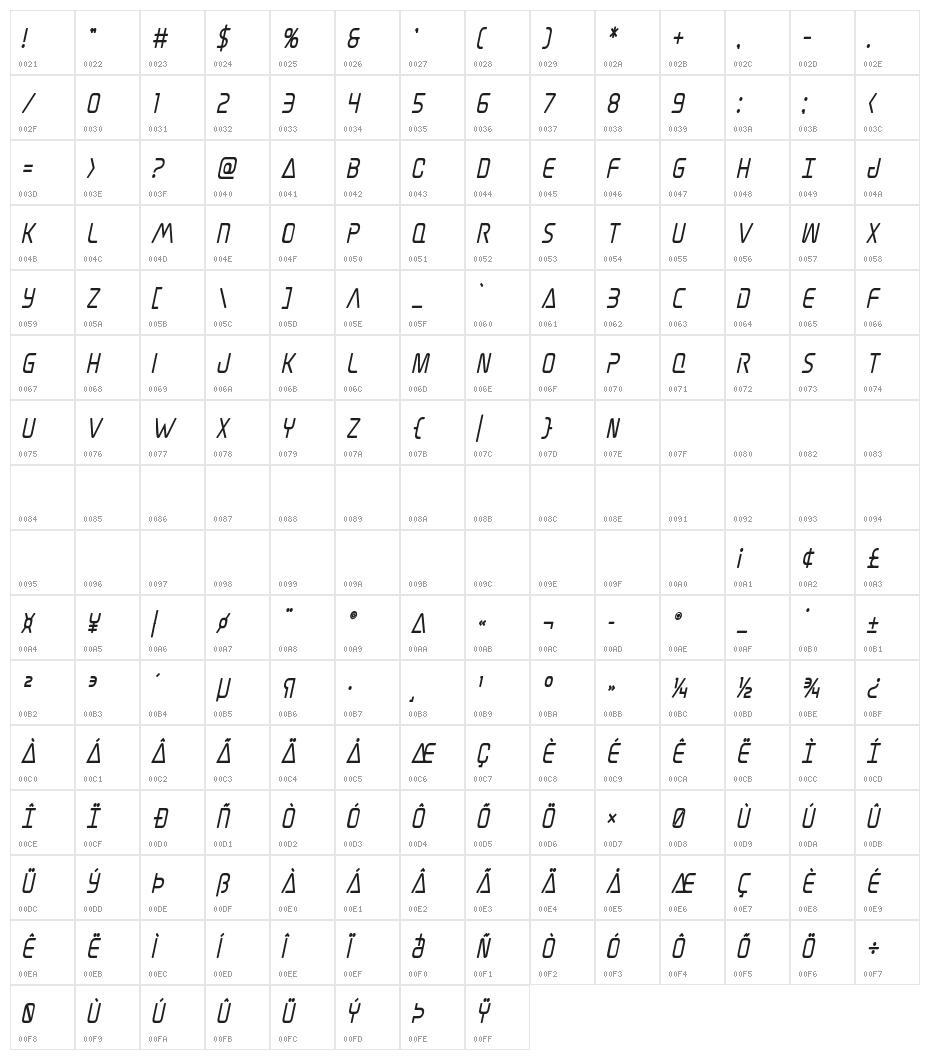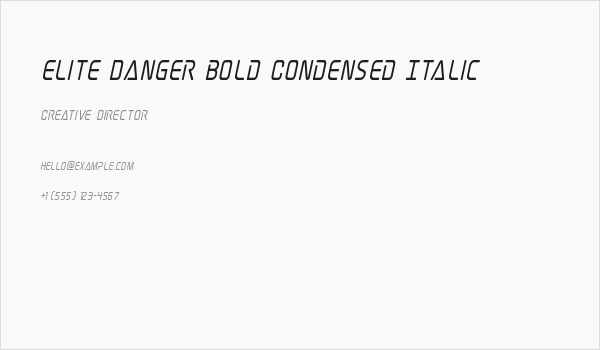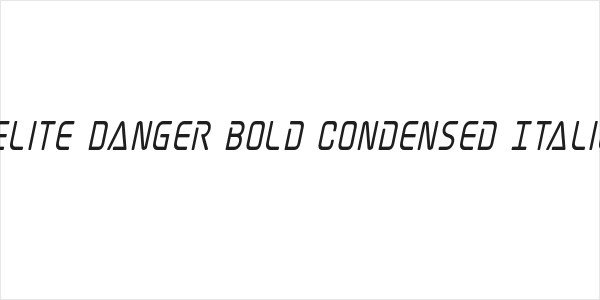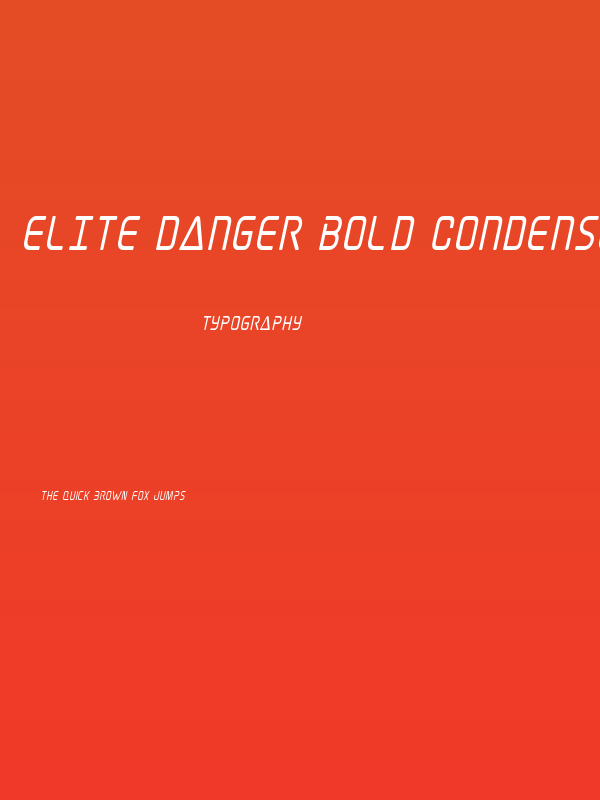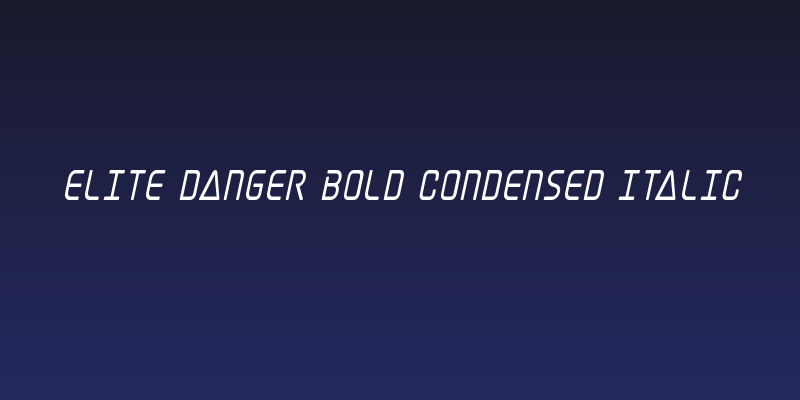
Elite Danger Bold Condensed Italic Font
Elite Danger Bold Condensed Italic Description
This font exhibits a bold and condensed style with a distinct italic slant, giving it a dynamic and modern appearance. The characters are designed with a geometric influence, featuring clean lines and sharp angles that convey a sense of precision and speed. The uppercase letters are particularly striking, with unique shapes that stand out, such as the triangular 'A' and the open 'P'. The numerals and special characters maintain the same bold and condensed characteristics, ensuring consistency across all glyphs. The font's condensed nature allows for efficient use of space, making it ideal for headlines and titles where impact is essential. Its italic style adds a sense of motion and urgency, suitable for projects that require a contemporary and energetic feel.
| Proposed Projects | Ideal for use in branding, sports team logos, automotive designs, and dynamic advertising campaigns. |